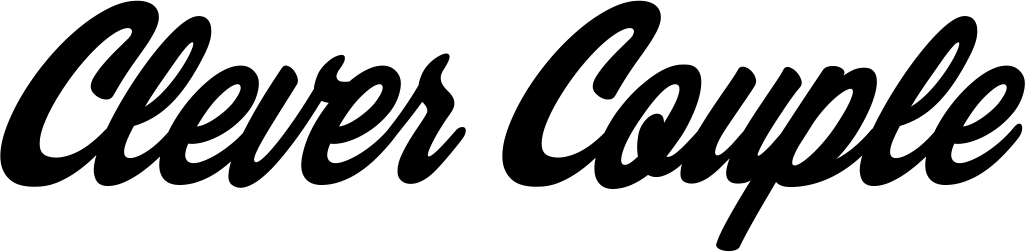
Clever Couple Font
Clever Couple font is very lovely and eye-catching. This cursive font can be placed in any music graphic file and attract the audience not only with music but also with text. The special coherence that exists in each character is a great similarity to the calligraphy typeface.
We suggest you add it even though does not contain numbers along with elegant fonts for designing your business card, wedding greeting card, and even many of your cosmetic brands.